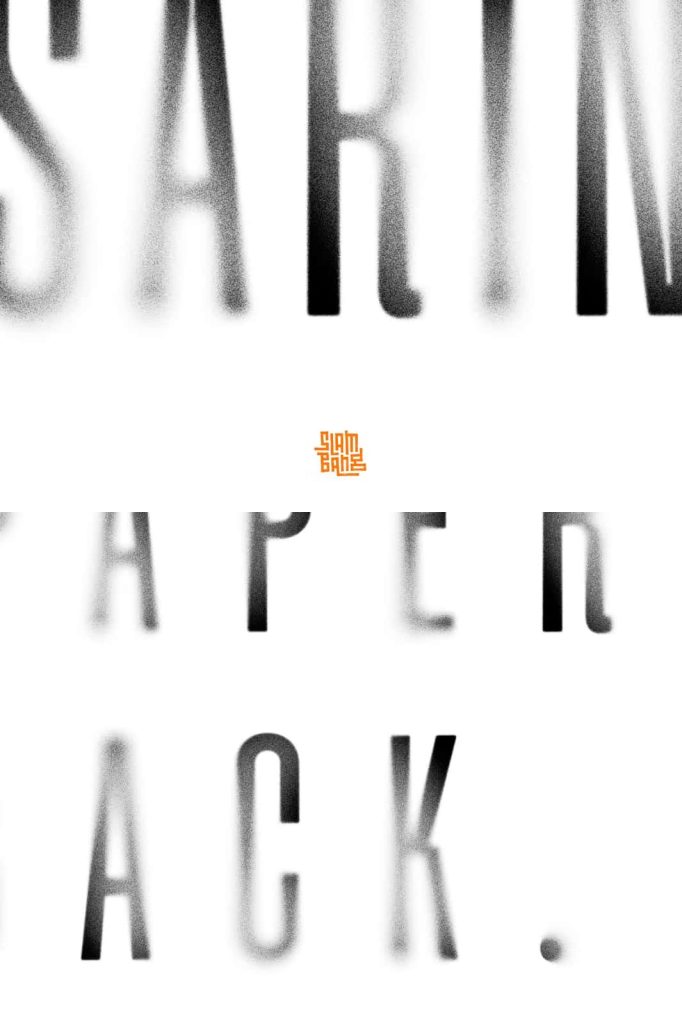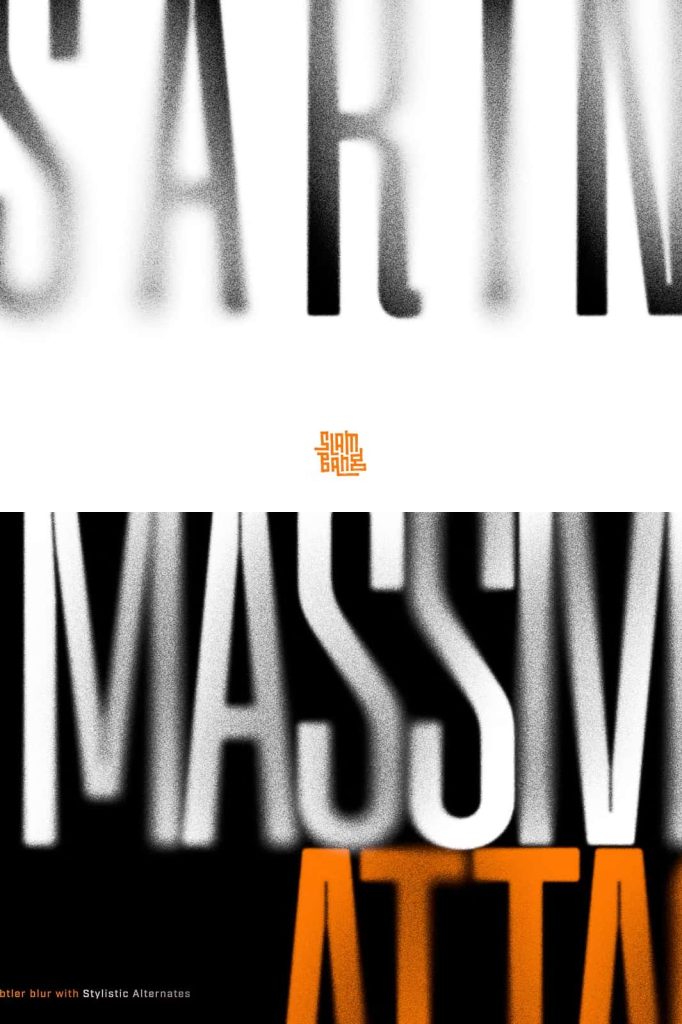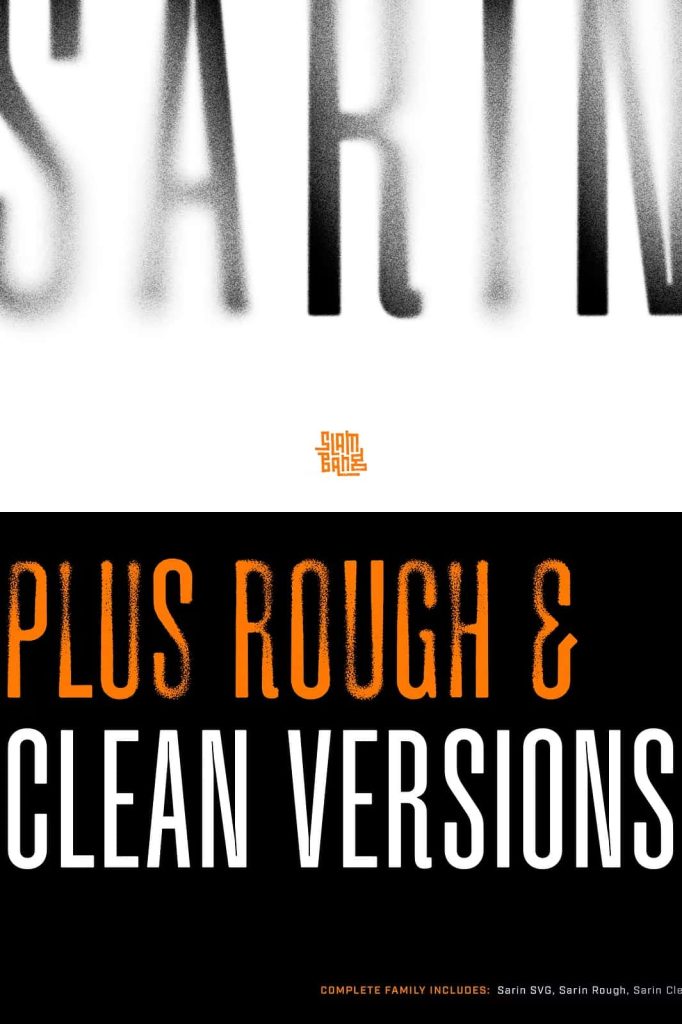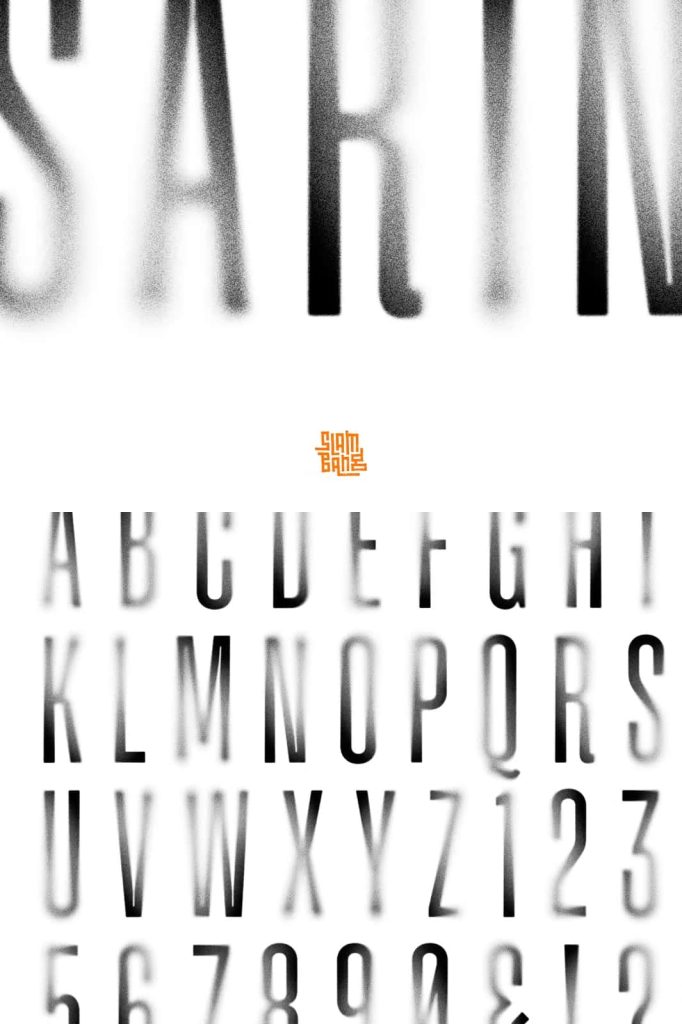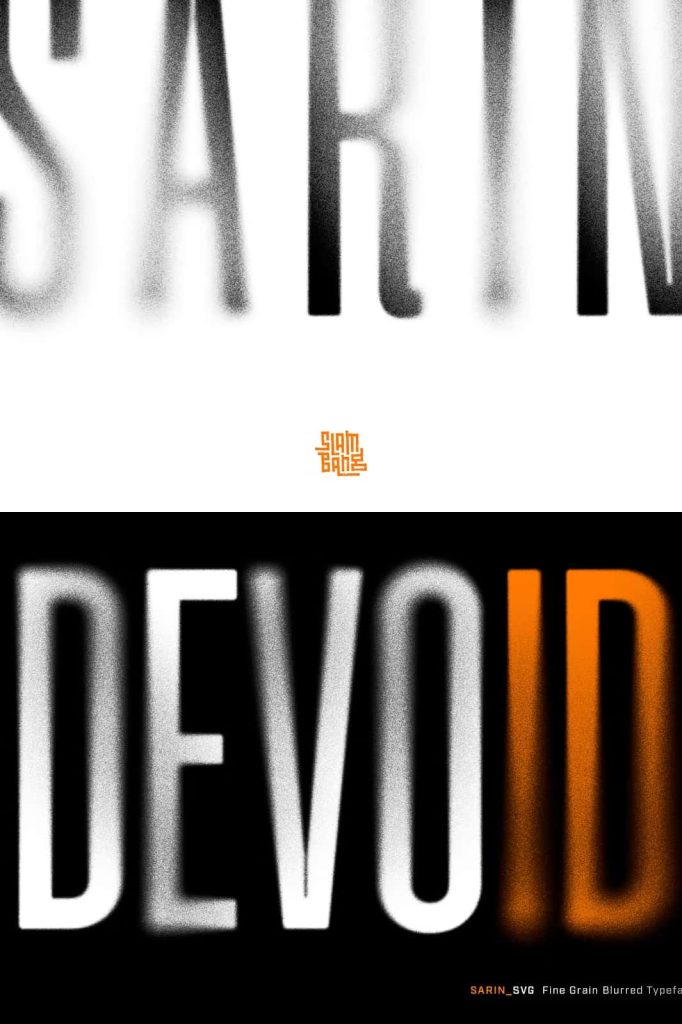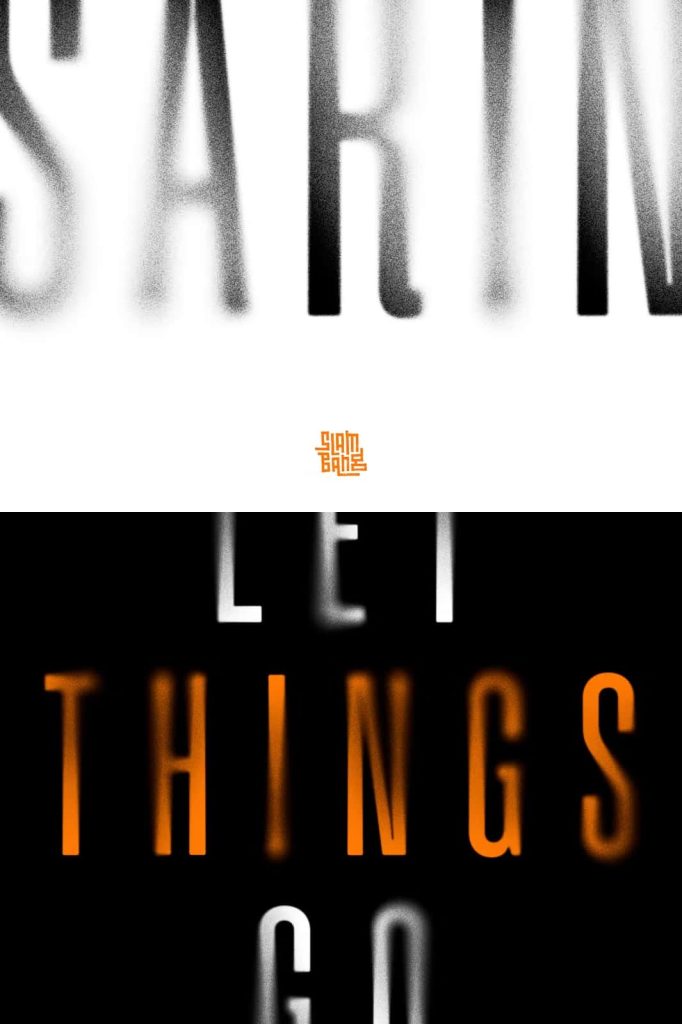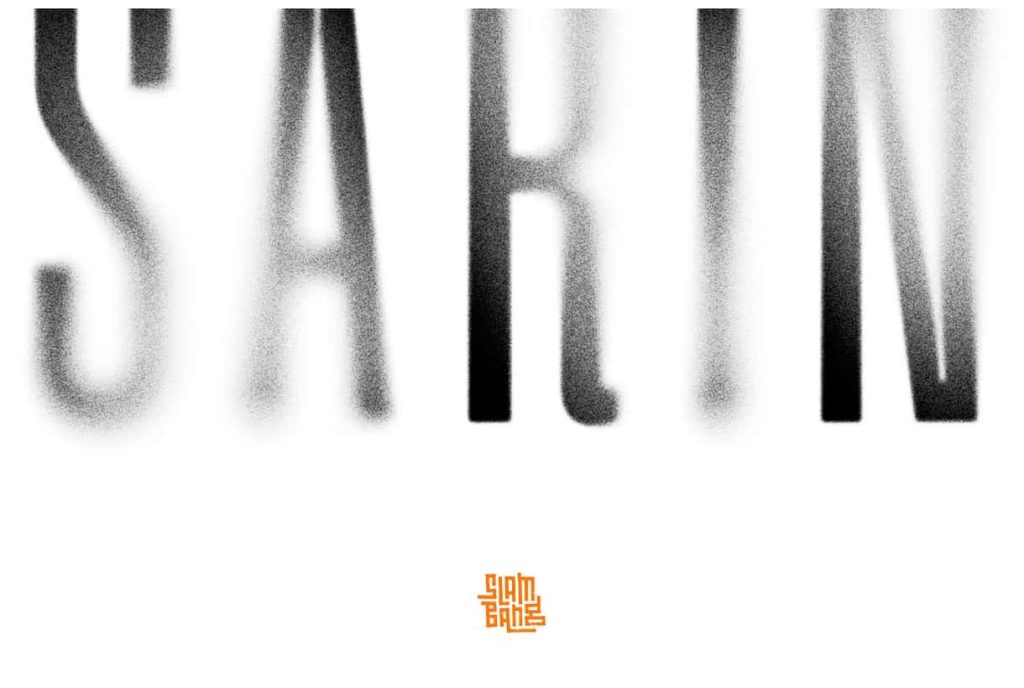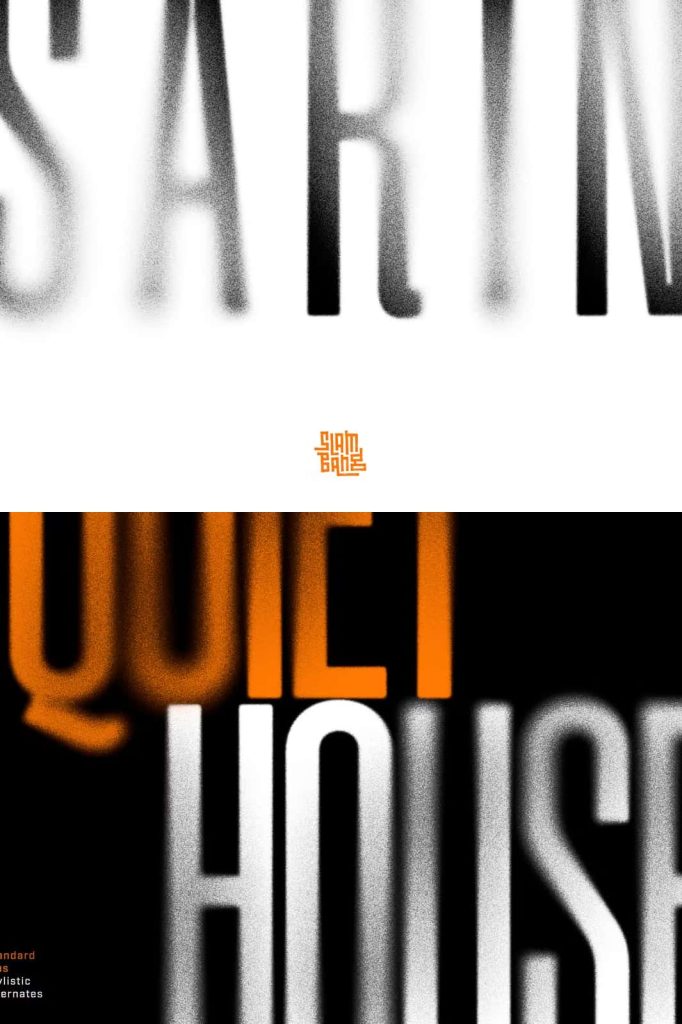
Sarin SVG Font: Industrial Grit and Atmospheric Depth for Bold Design
Sarin SVG Font is a condensed, industrial-inspired typeface designed for creative projects that demand intensity, emotion, and depth. With its gritty fine-grain blur and smoky, atmospheric edges, this font brings raw texture and tension to every design. Sarin SVG isn’t just another typeface—it’s an immersive visual experience, perfect for dystopian film titles, experimental branding, music artwork, and striking editorial design.
This is the kind of font that transforms a layout into a statement. Whether you’re designing for film, fashion, music, or tech, Sarin SVG injects attitude and mystery, creating visuals that linger in the viewer’s mind long after they’ve seen them.
A Typeface Forged from Industrial Inspiration
Sarin SVG Font captures the rugged beauty of industrial environments—grit, smoke, metal, and motion. Its condensed sans-serif structure gives it strength and discipline, while the SVG texture introduces chaos and imperfection. The result is a typeface that feels both engineered and human, precise yet unpredictable. This duality makes Sarin SVG ideal for projects that blend technology, art, and emotion.
The typeface’s high contrast and textured edges evoke the feeling of movement through haze or static. Its blurred gradients suggest speed, decay, and transformation, making it an exceptional choice for cinematic posters, dystopian storytelling, and avant-garde visual design.
Designed for Bold Creative Expression
When you use Sarin SVG Font, you’re not just adding text—you’re adding atmosphere. Each letter carries a tangible sense of tension and presence. The font’s condensed form allows designers to create compact, powerful compositions that maximize impact without sacrificing readability. The subtle fading edges add depth, turning simple headlines into works of art.
Its unique combination of solid structure and smoky diffusion makes it perfect for movie titles, album artwork, and poster layouts where mystery and tone are essential. It thrives in digital and print applications where mood, emotion, and texture matter as much as form.
Perfect for Dystopian and Experimental Aesthetics
Few fonts capture dystopian energy like Sarin SVG Font. It’s tailor-made for projects that explore the intersection between beauty and decay. Whether you’re working on cyberpunk visuals, futuristic branding, or sci-fi storytelling, Sarin SVG adds a distinctive atmosphere that commands attention. Its smoky gradients create an illusion of motion and depth, making it ideal for digital overlays, motion graphics, and cinematic intros.
For music and album artwork, the font evokes emotional tension—perfect for genres like industrial, electronic, or ambient soundscapes. Its hazy textures mirror the layered complexity of sound and emotion, translating the unseen into visual form. Sarin SVG turns typography into sound and movement.
Built for Designers Who Push Boundaries
Sarin SVG Font isn’t for ordinary projects—it’s for creators who embrace experimentation. Its textural depth challenges flat design trends and reintroduces imperfection as an art form. The grainy blur creates a tactile realism, allowing the text to feel almost alive. Designers who want to break visual conventions will find this typeface indispensable for expressing dark elegance, futuristic rebellion, and moody sophistication.
- Condensed industrial sans with a distinctive gritty blur.
- Fine-grain texture that adds realism and edge.
- Perfect for dystopian, cinematic, or experimental aesthetics.
- Ideal for album art, posters, branding, and motion graphics.
- Compatible with both digital and print design environments.
Texture, Contrast, and Emotion
Every letter in Sarin SVG Font carries a delicate interplay between sharp geometry and atmospheric blur. The edges dissolve naturally into the background, creating a feeling of depth, distortion, and dreamlike motion. This balance makes the font incredibly expressive while maintaining its structural clarity. The condensed form keeps compositions tight and controlled, allowing the designer to emphasize vertical movement and intensity.
From large-scale posters to subtle typographic accents, Sarin SVG adapts effortlessly to a wide range of creative contexts. It works beautifully as a headline font or as a branding mark that embodies tension, emotion, and creative grit.
Why Choose Sarin SVG Font?
Because it doesn’t just look different—it feels different. Sarin SVG brings visual texture that you can almost touch. It’s for those who want their typography to tell a story—to reflect the grit of the streets, the smoke of the city, and the beauty found in imperfection. This font bridges the gap between design and emotion, between digital precision and handmade chaos.
Bring Depth and Mystery to Every Design
With its raw textures and blurred atmosphere, Sarin SVG Font delivers a unique balance of clarity and distortion. It allows designers to build powerful visuals filled with emotion, contrast, and authenticity. Whether used for film titles, editorial layouts, or immersive branding, it creates a cinematic experience that commands attention.
Step beyond traditional typography—embrace the industrial edge, the smoky mystery, and the creative boldness of Sarin SVG Font. Turn every design into an atmospheric journey, and let your words dissolve into art.